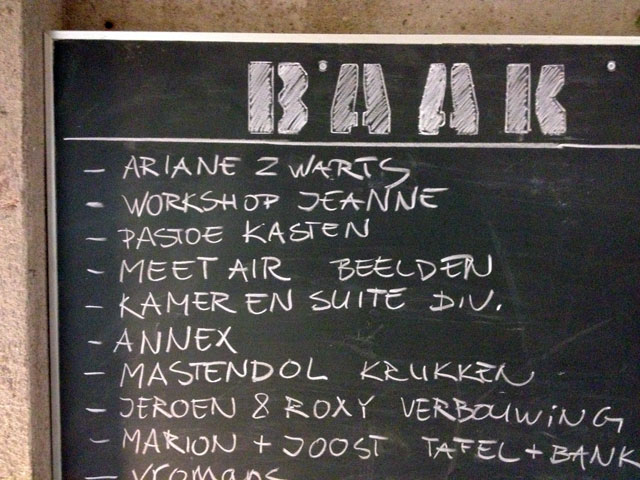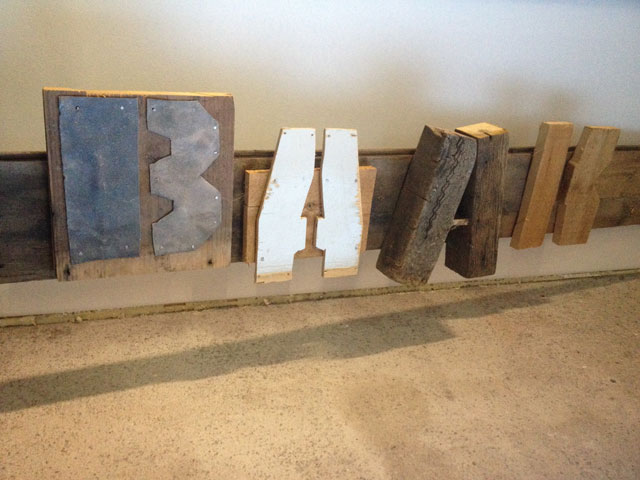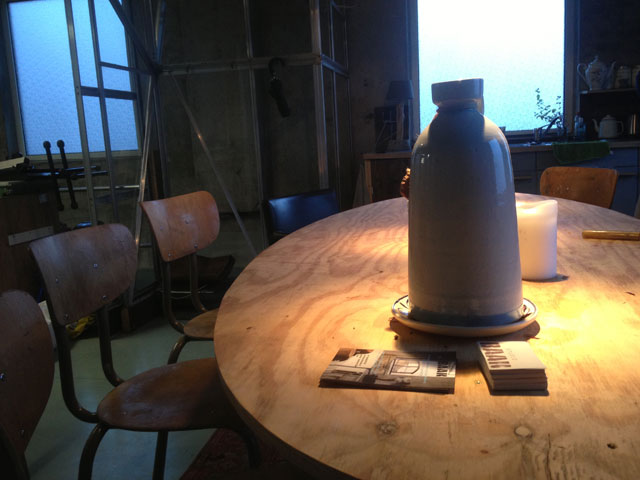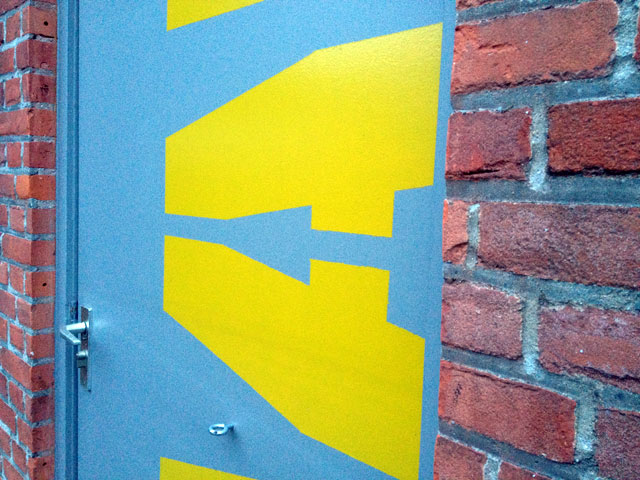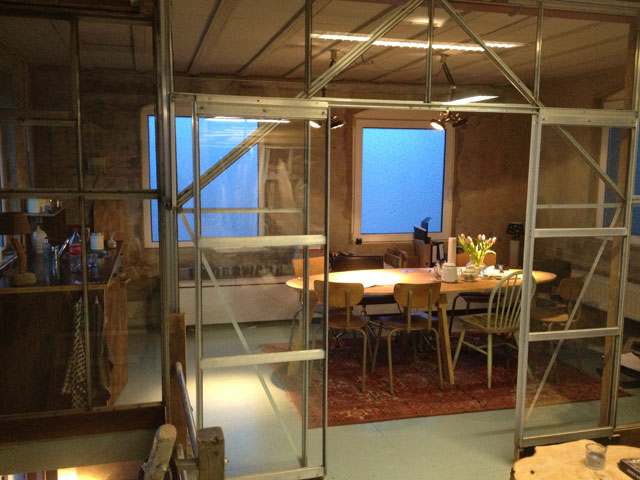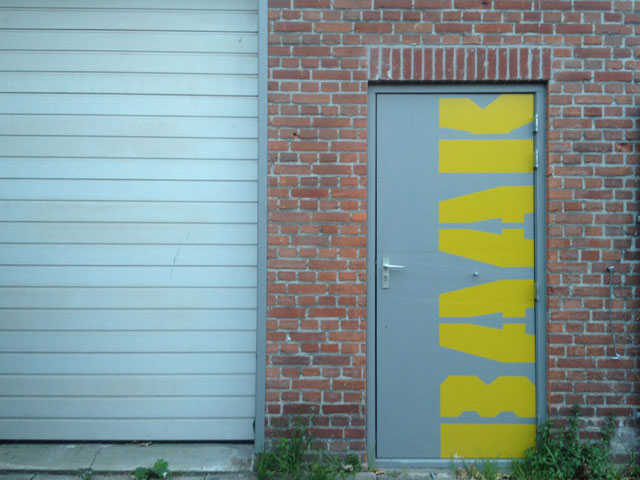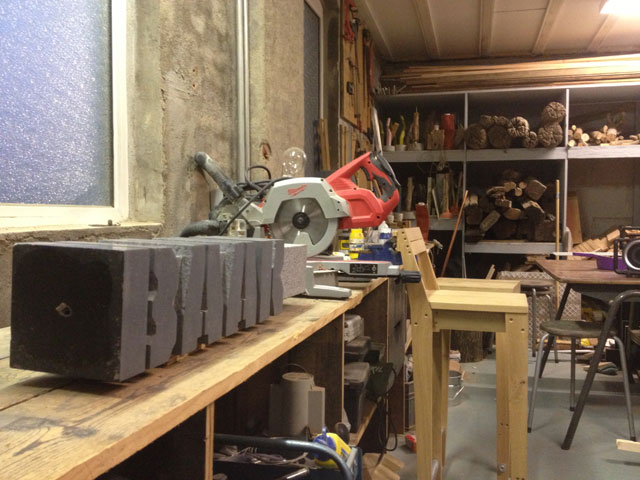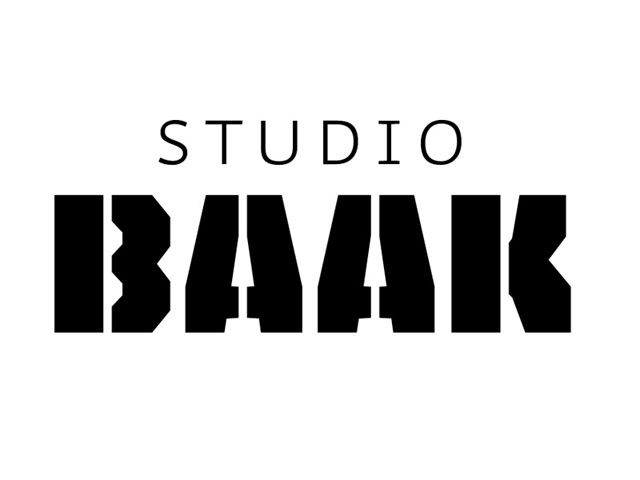
The nice aspect of a typeface without any curves, like Tripper, is that it’s applicable for certain applications where making curves is problematic. Cutting letters out of stone for example. But also other applications are suddenly much quicker, like painting the letters on a large scale. Studio Baak doesn’t hesitate to apply Tripper pretty freestyle, or more calm and restrained throughout their studio.
Baak identity
Studio Baak
Tripper